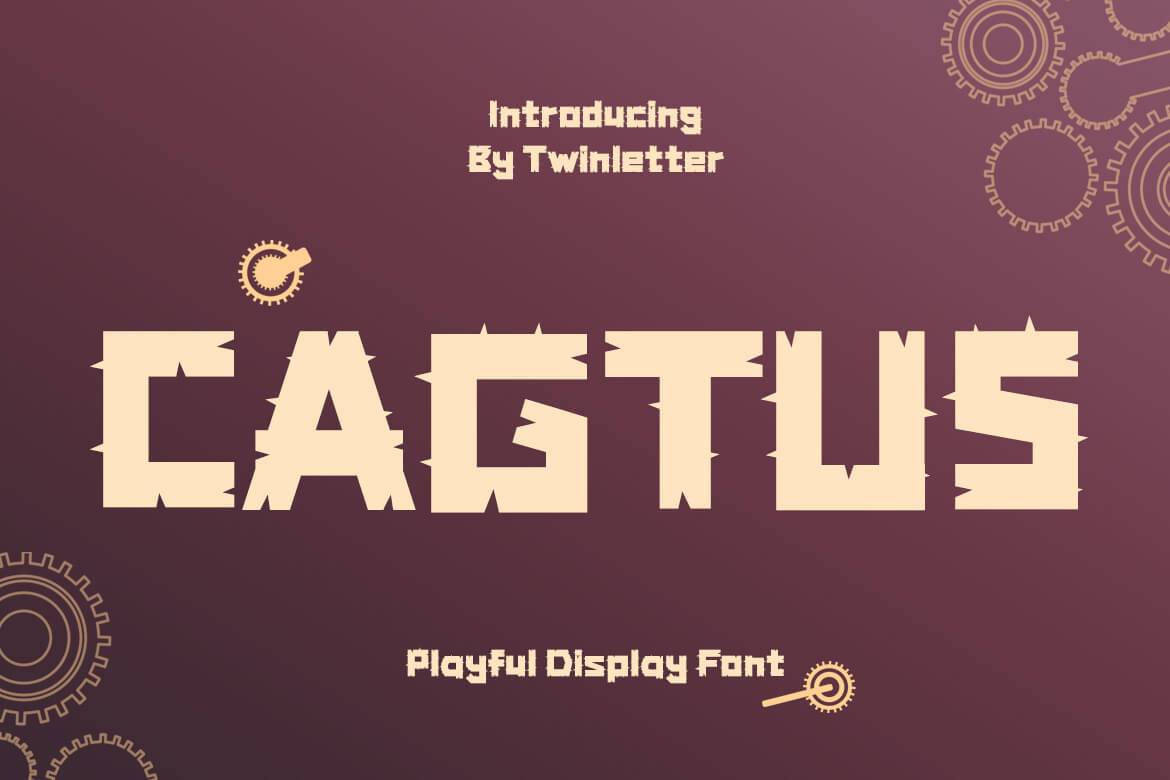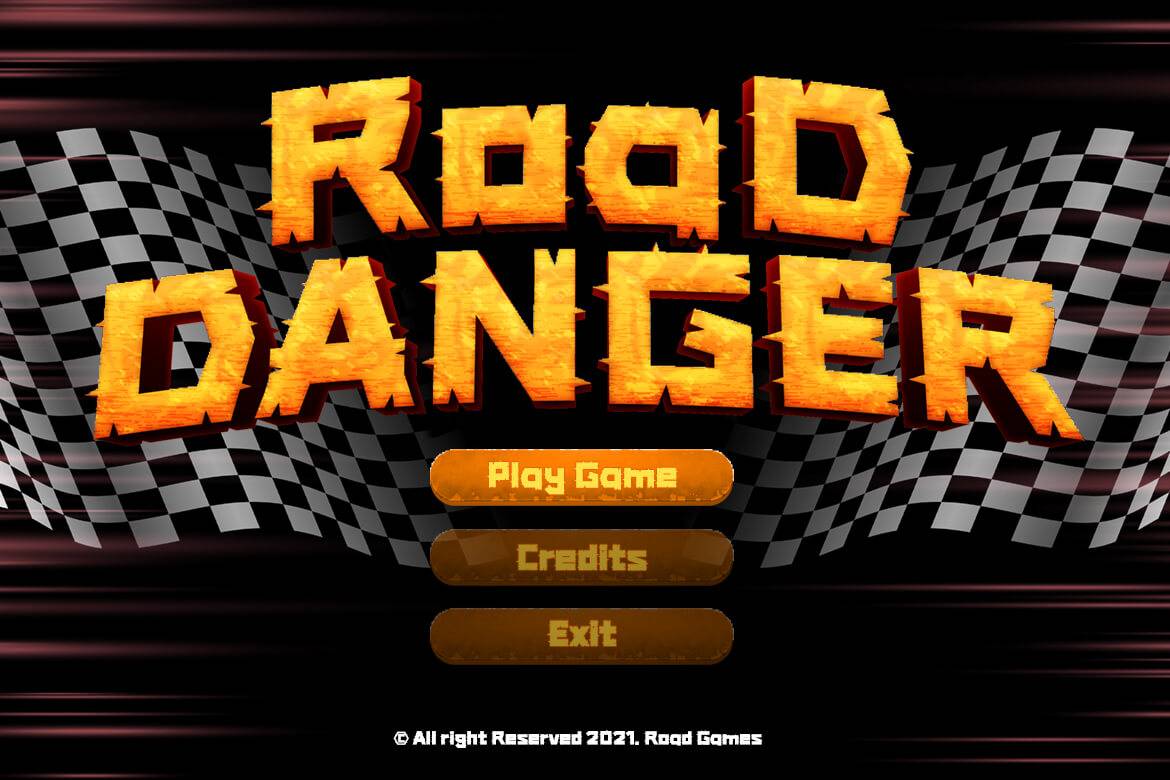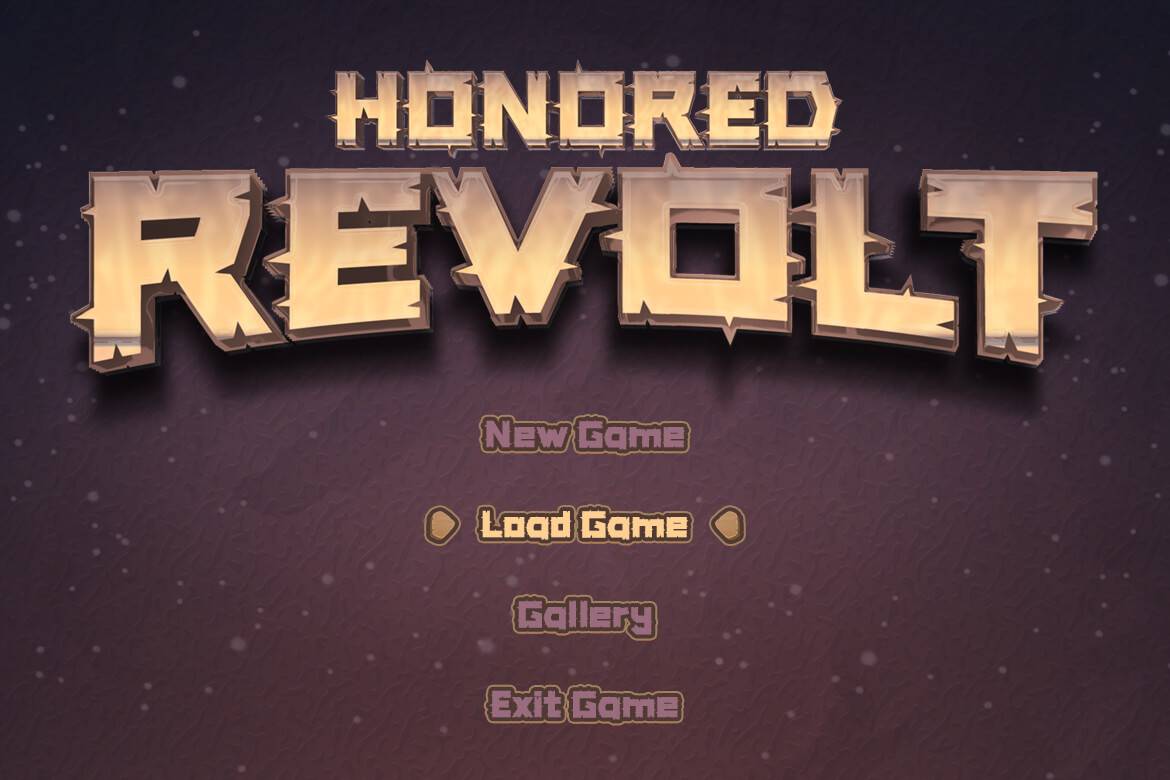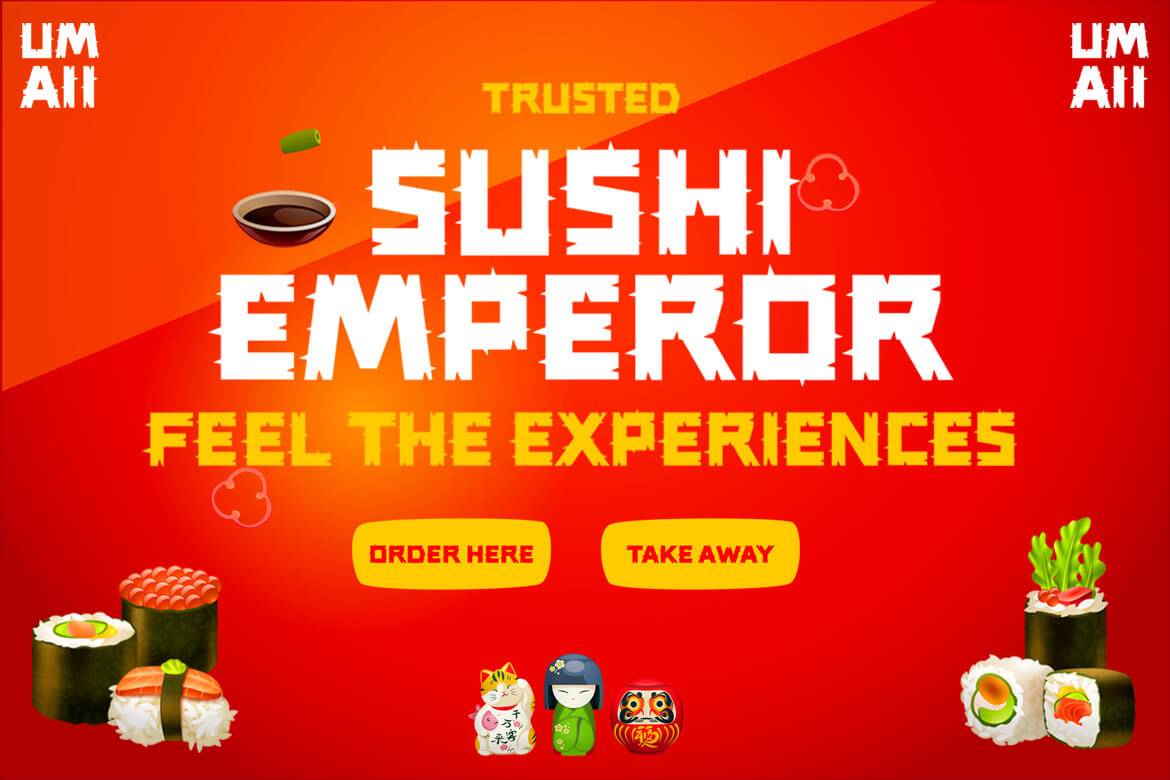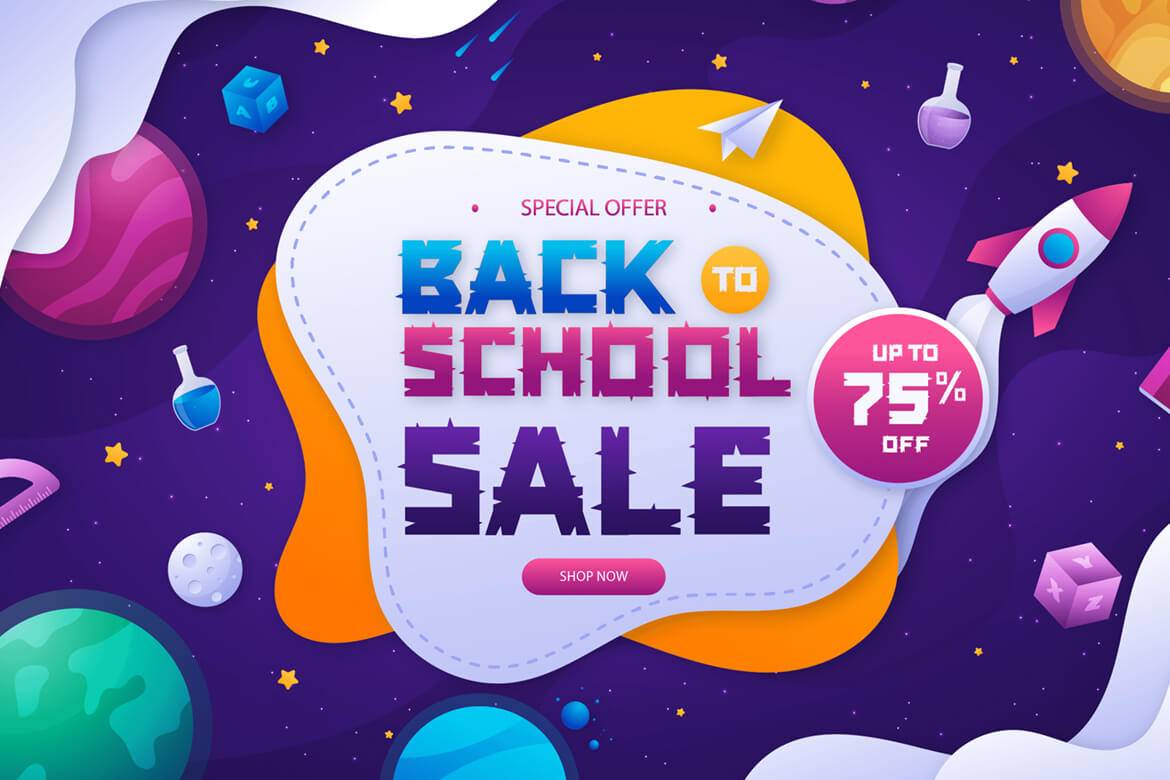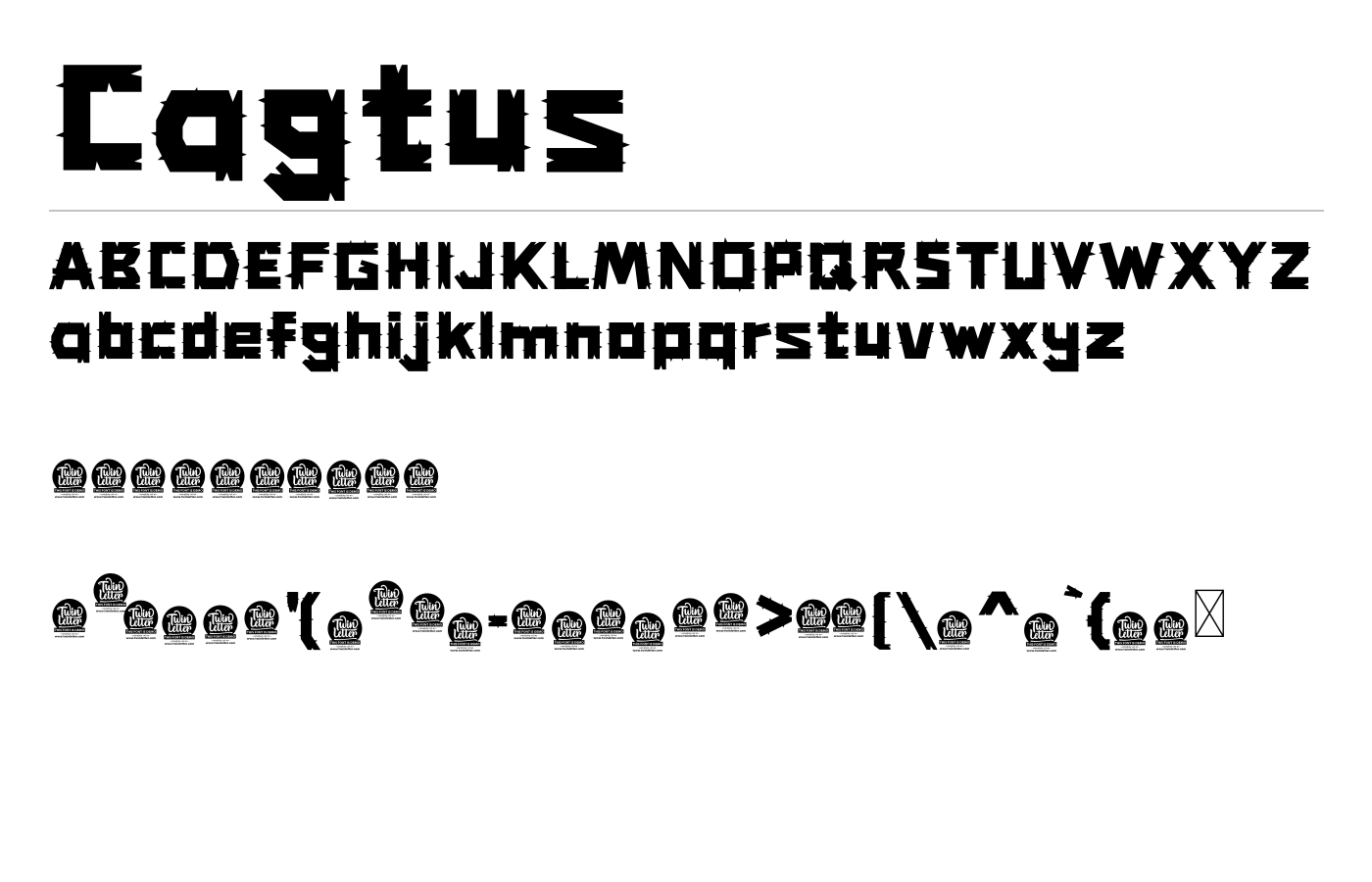
Cagtus is a bold, blocky display font with a distinctive spiky texture that gives it a rugged, edgy character reminiscent of cactus thorns. Its geometric, condensed letterforms with sharp, jagged edges create a striking and unconventional look, perfect for eye-catching headlines, posters, or branding that wants to convey toughness and uniqueness. This font works best in creative and adventurous projects where a strong, daring personality is needed.
Cagtus Font
About Cagtus Font